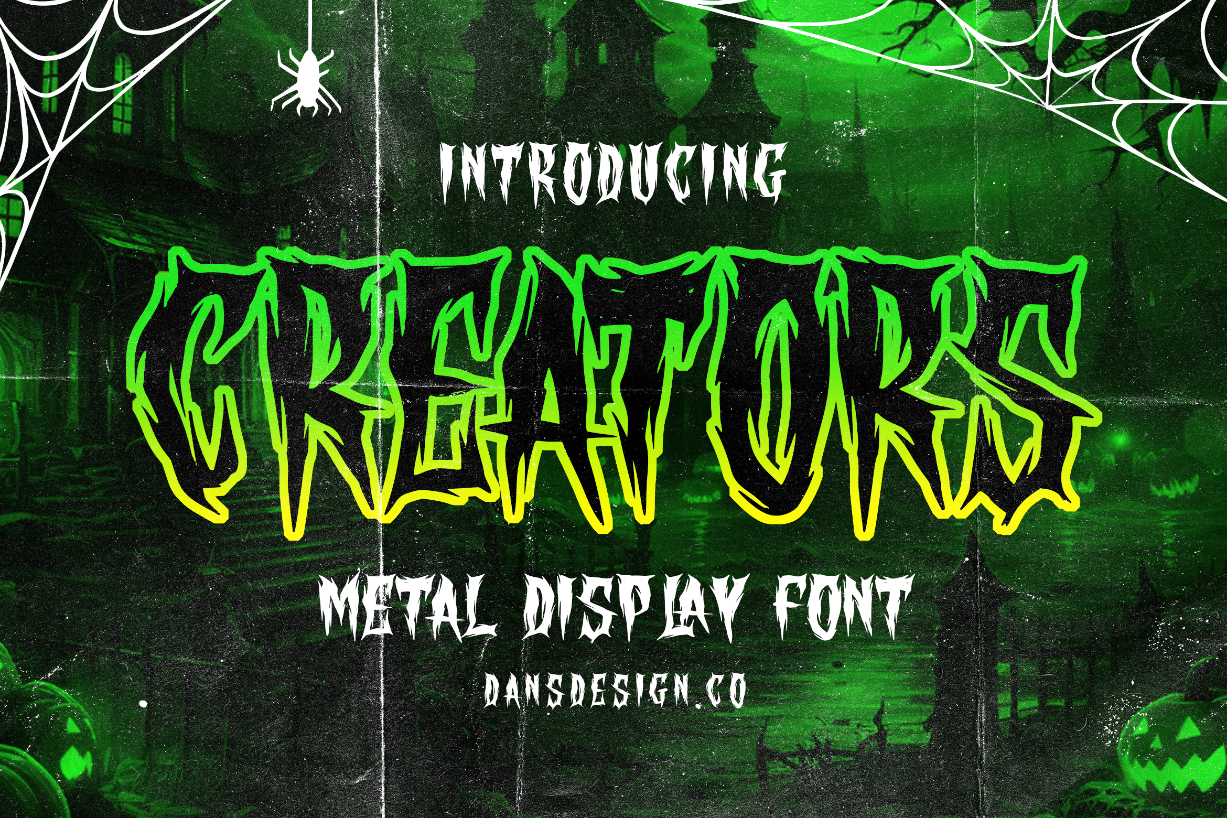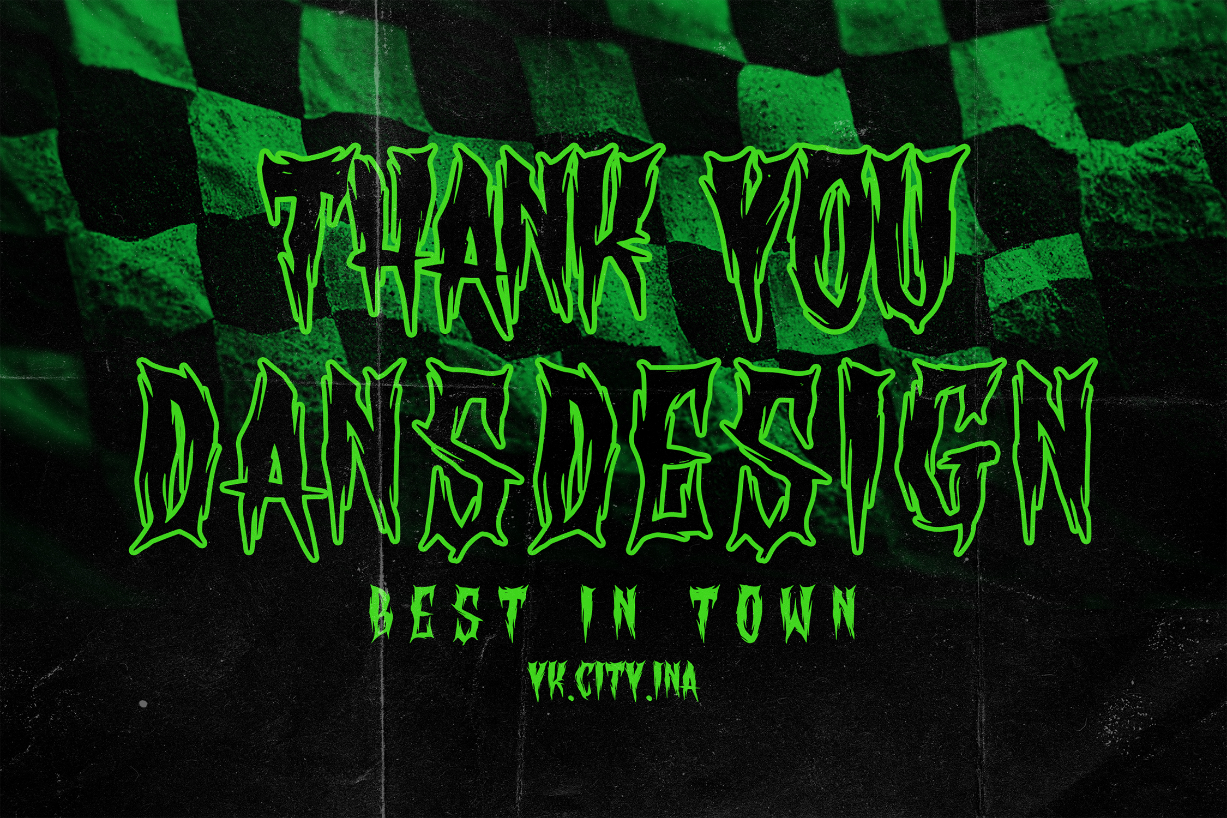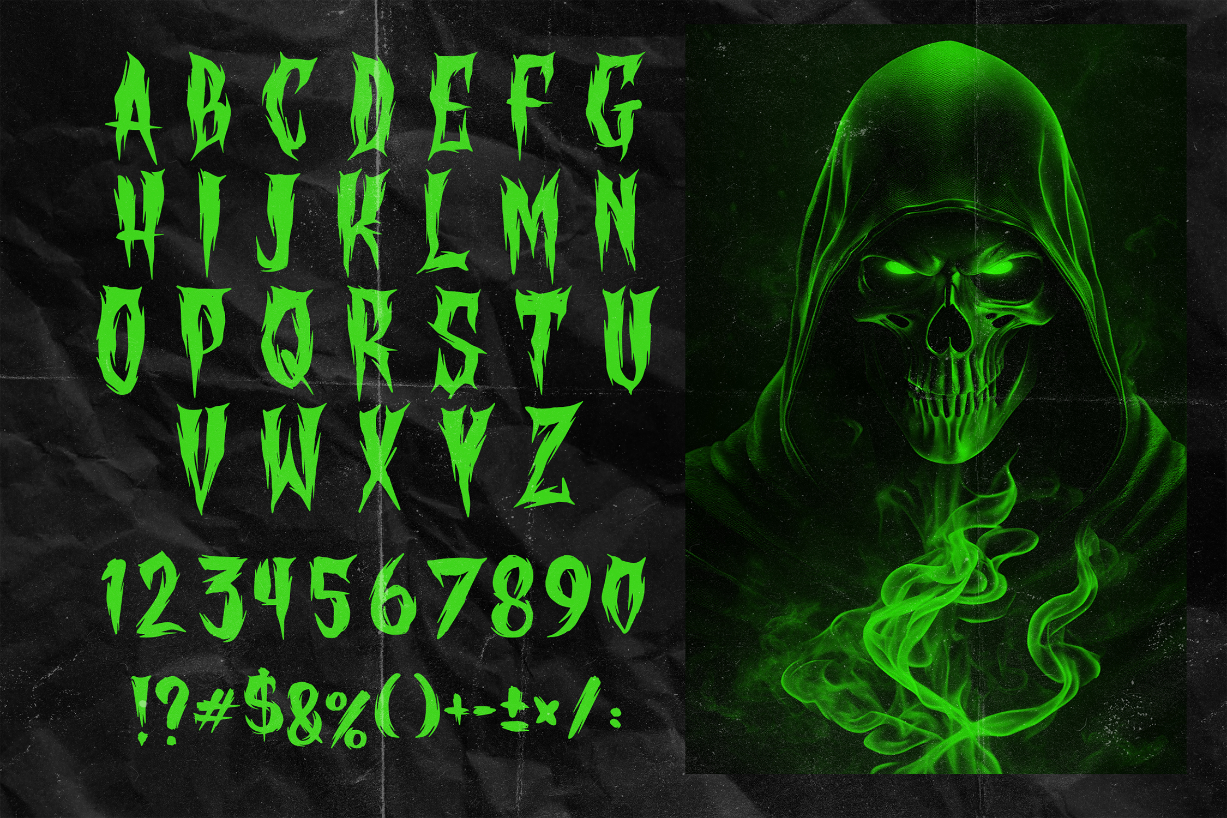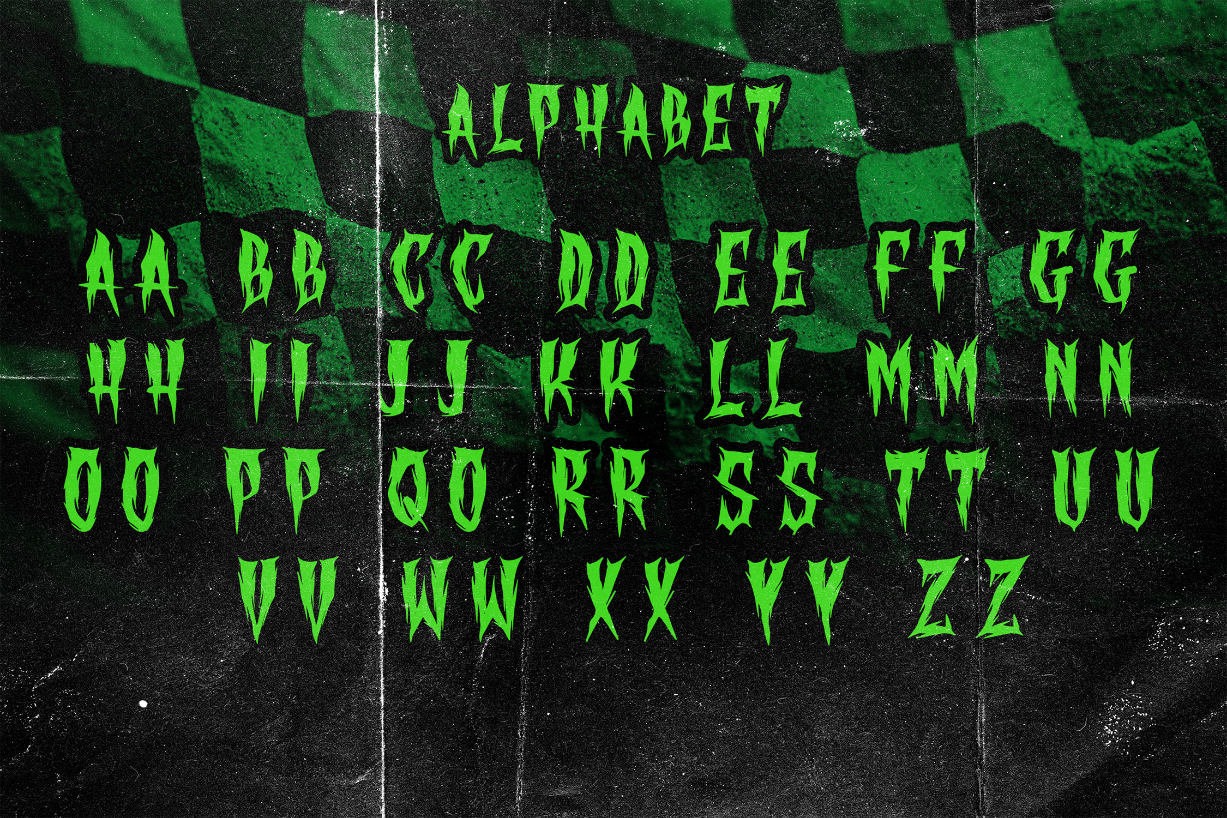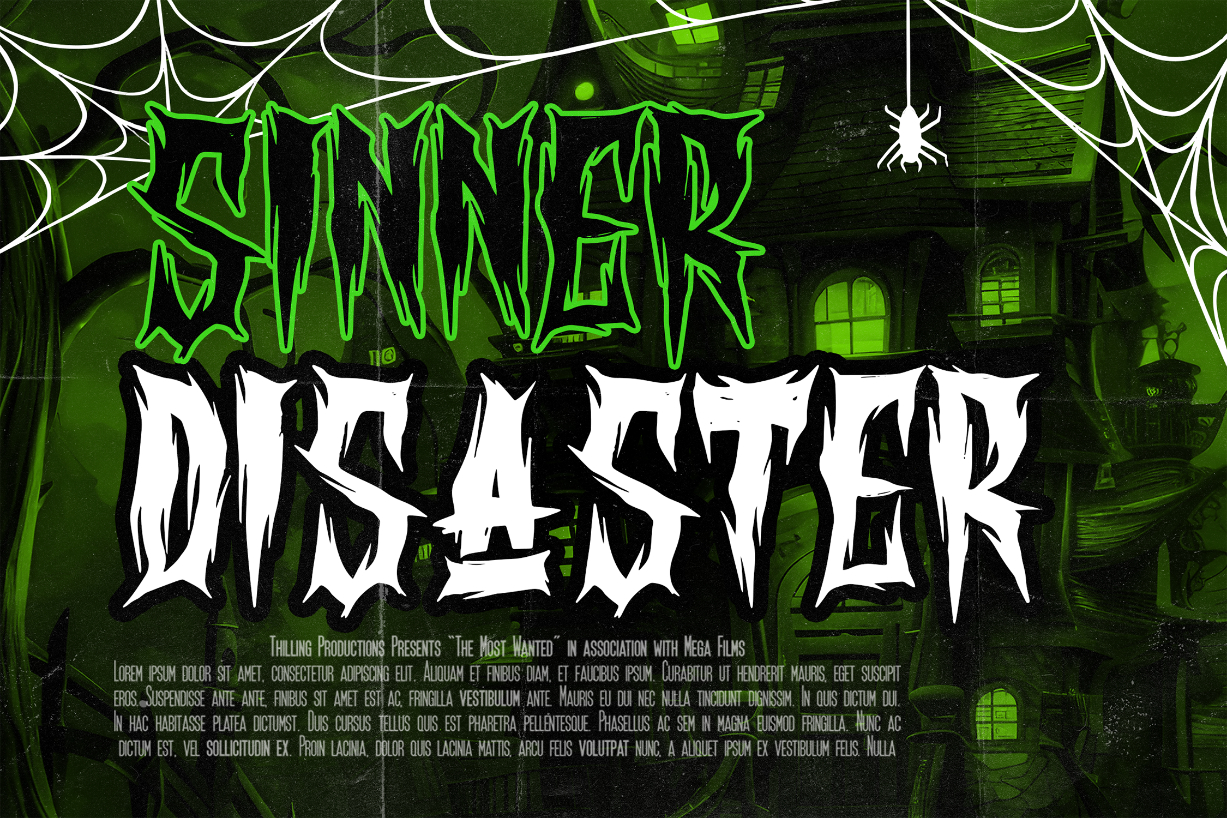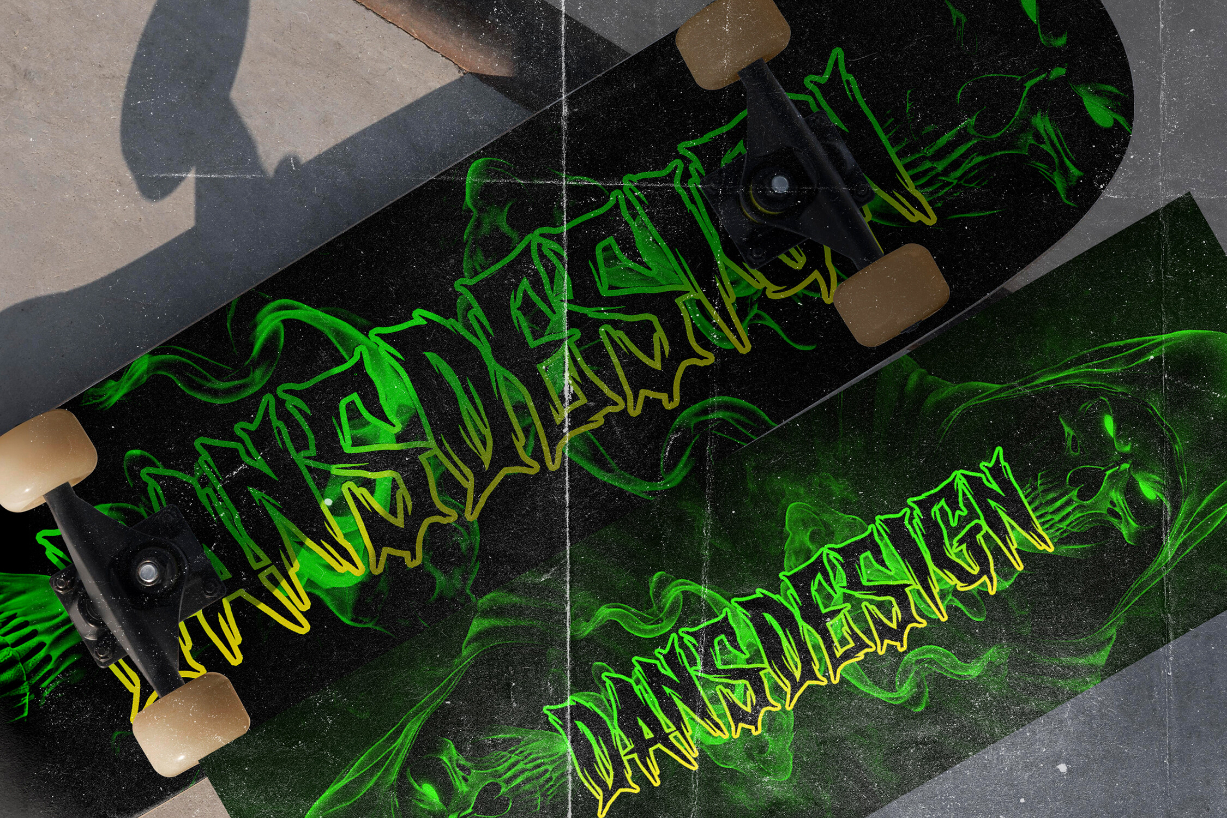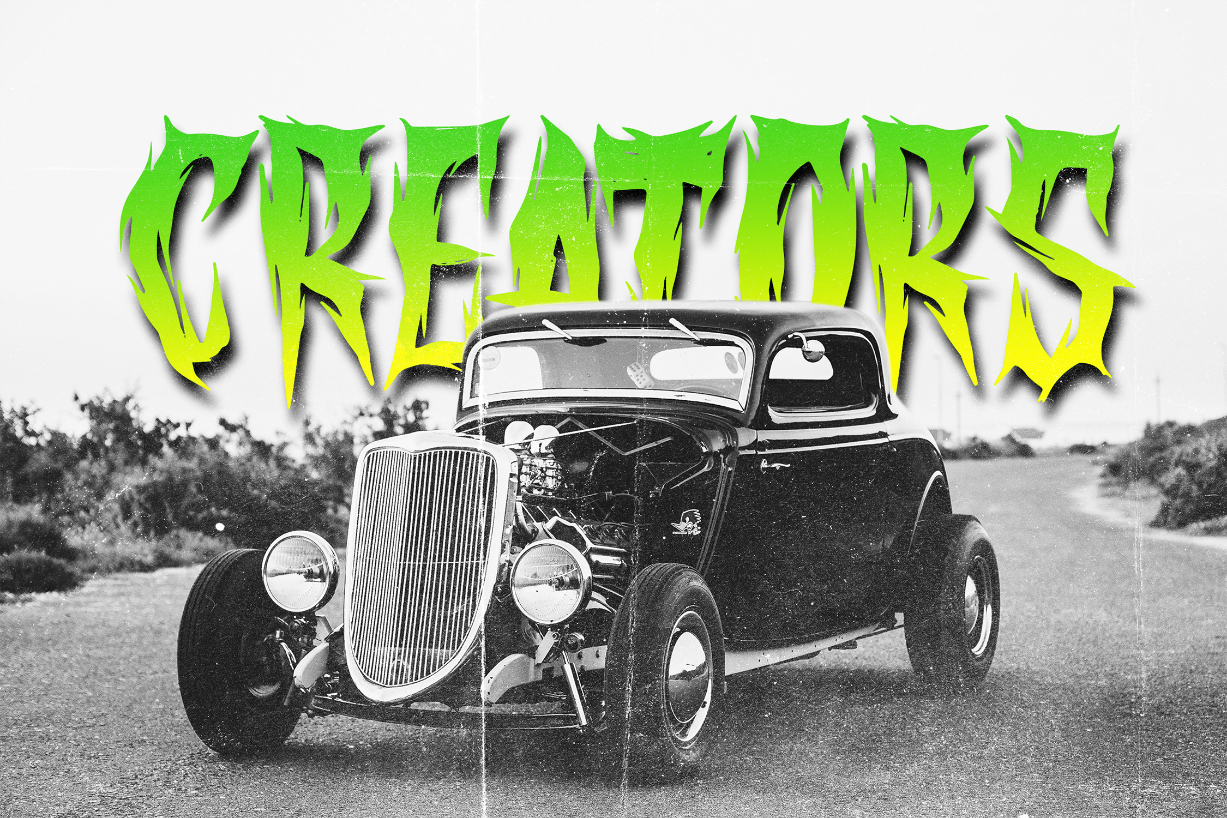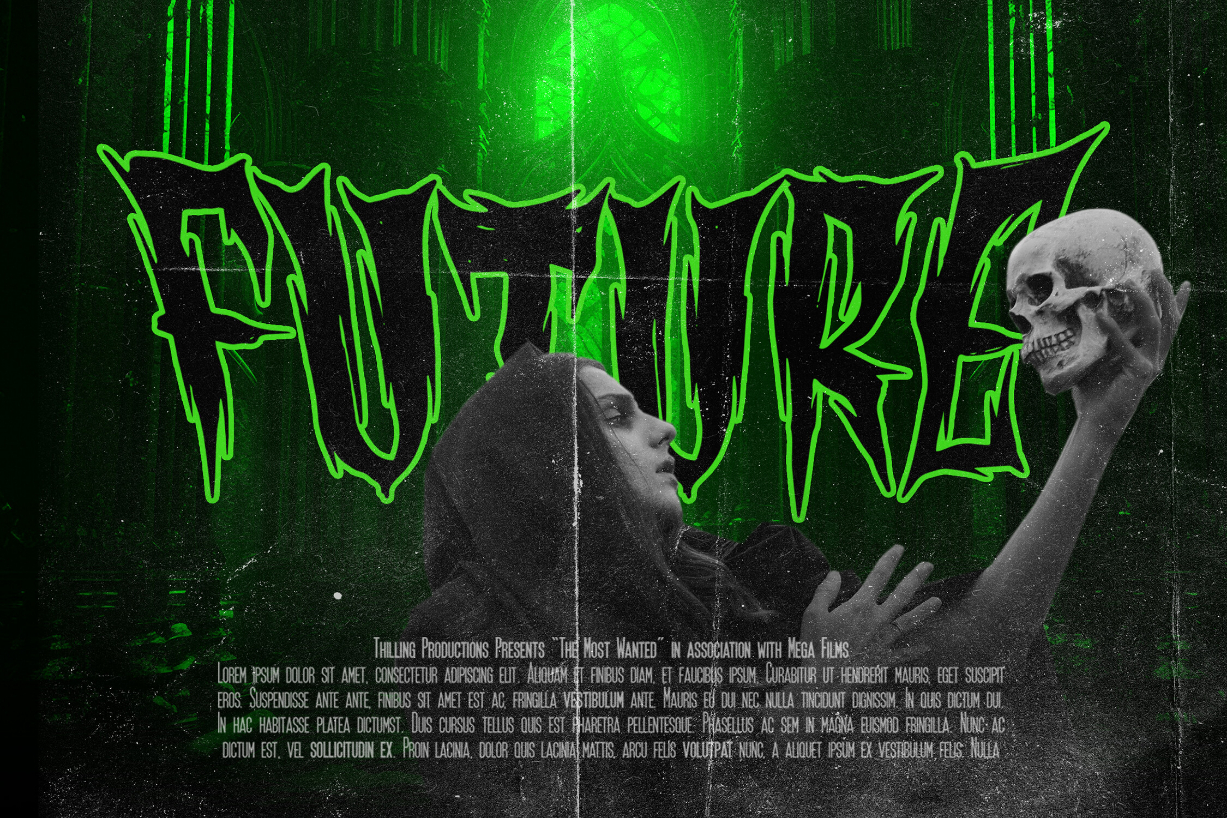
Creators Font
About Creators Font
Creators is a bold and thick lettered blackletter display font. Add it confidently to your projects, and you will love the results.